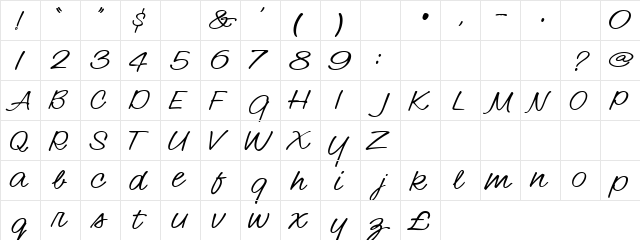
1 Archer DNA Regular
Design Context for 1 Archer DNA Typeface
1 Archer DNA is a composed and adaptable typeface that performs quietly and consistently across a wide range of design contexts.